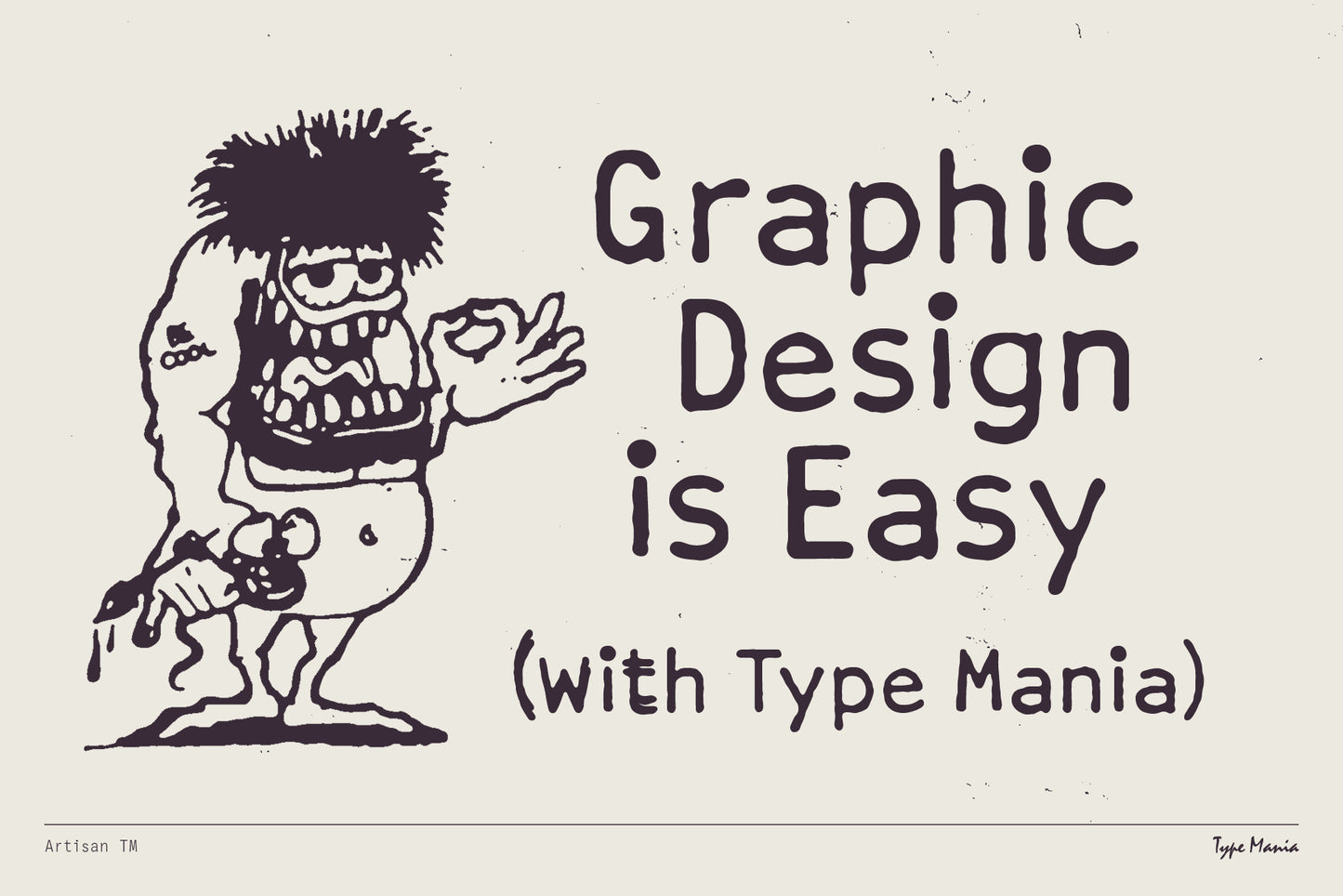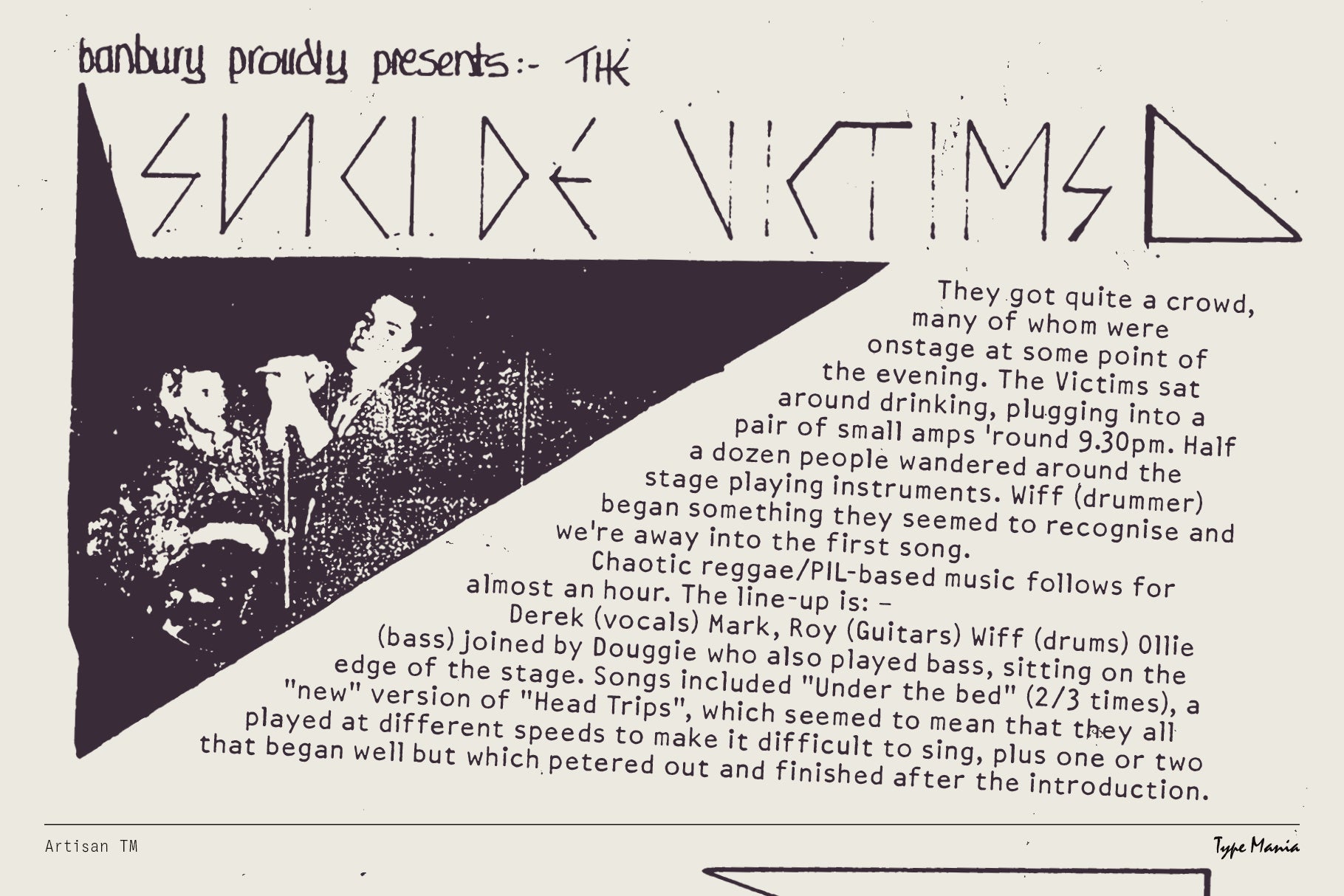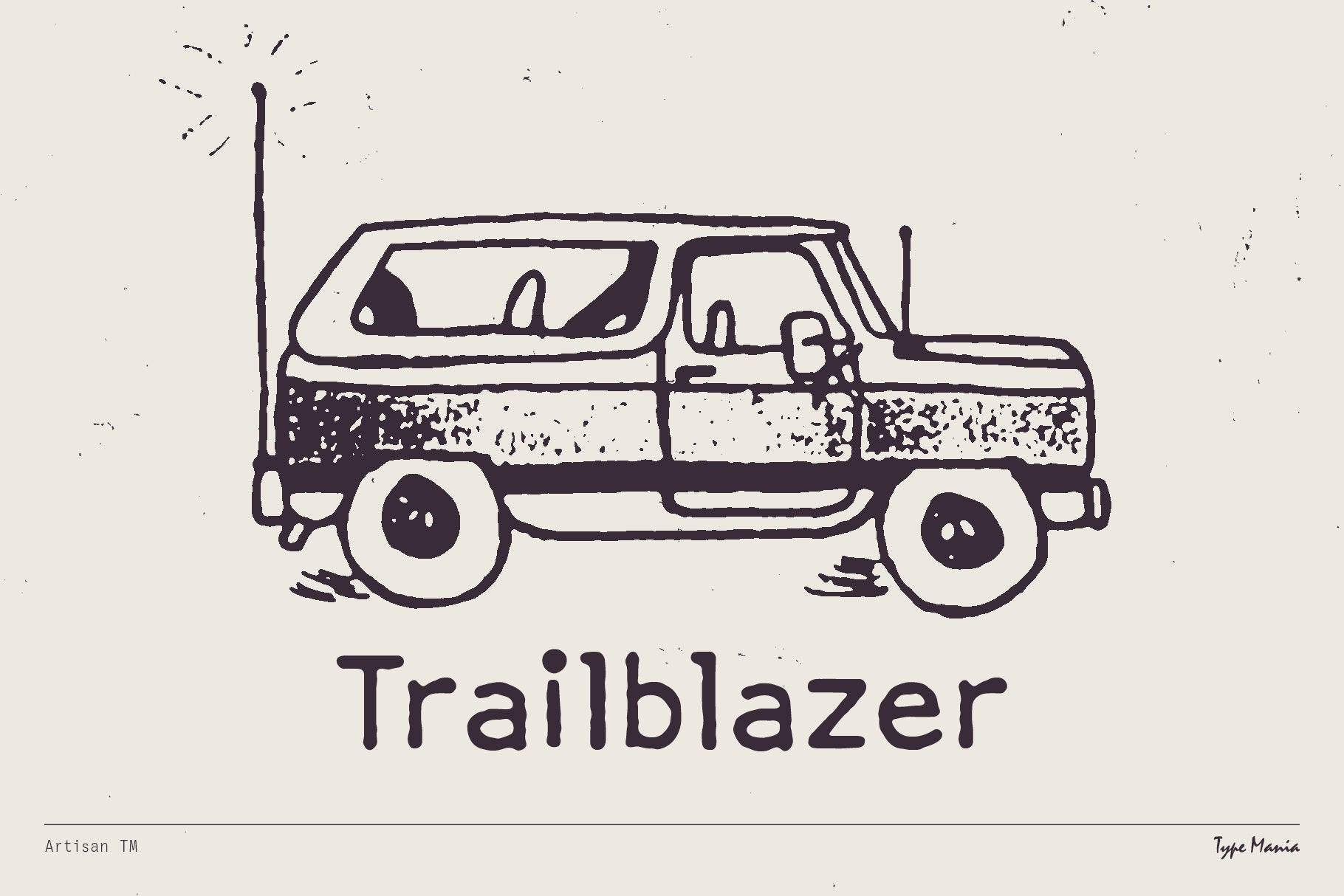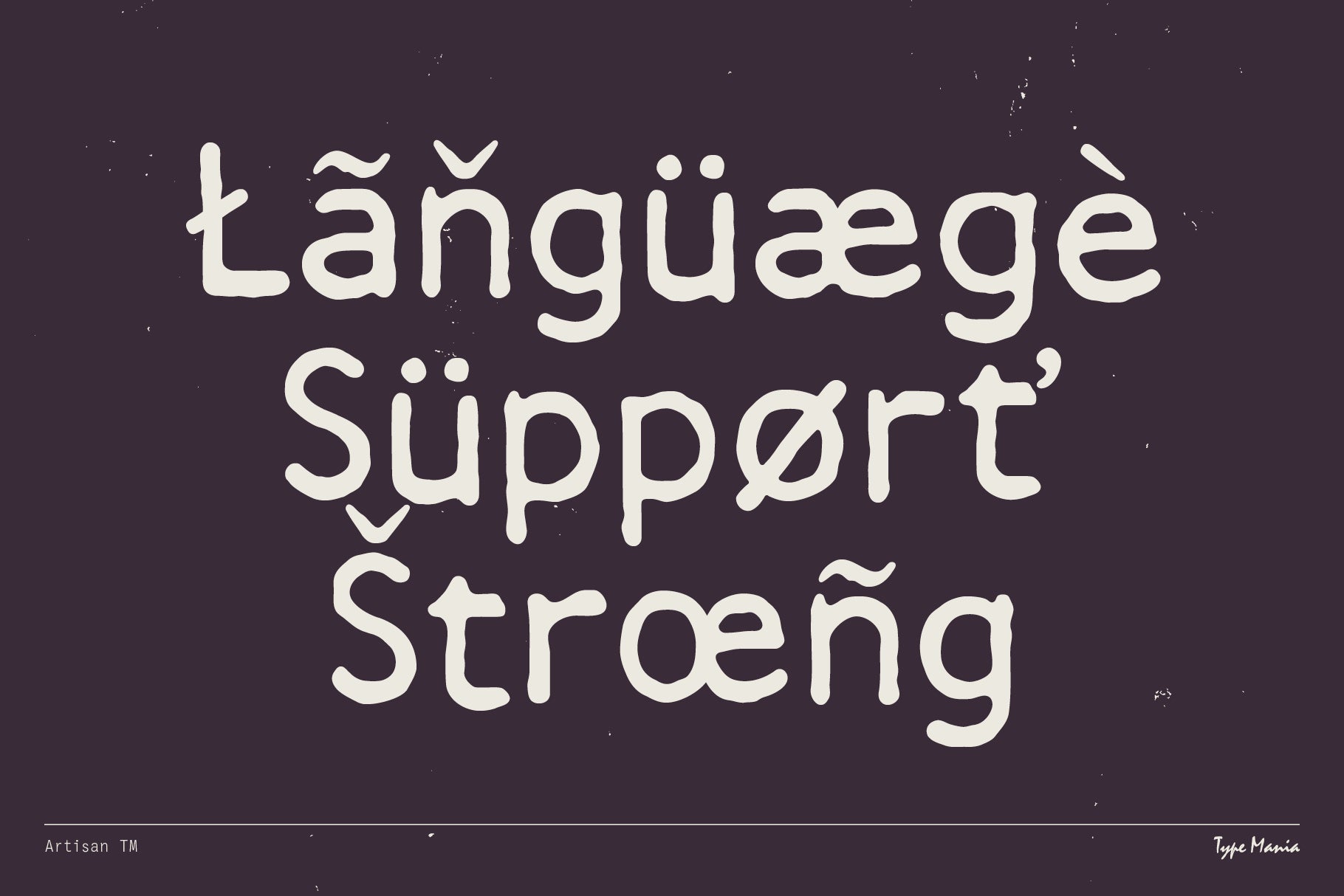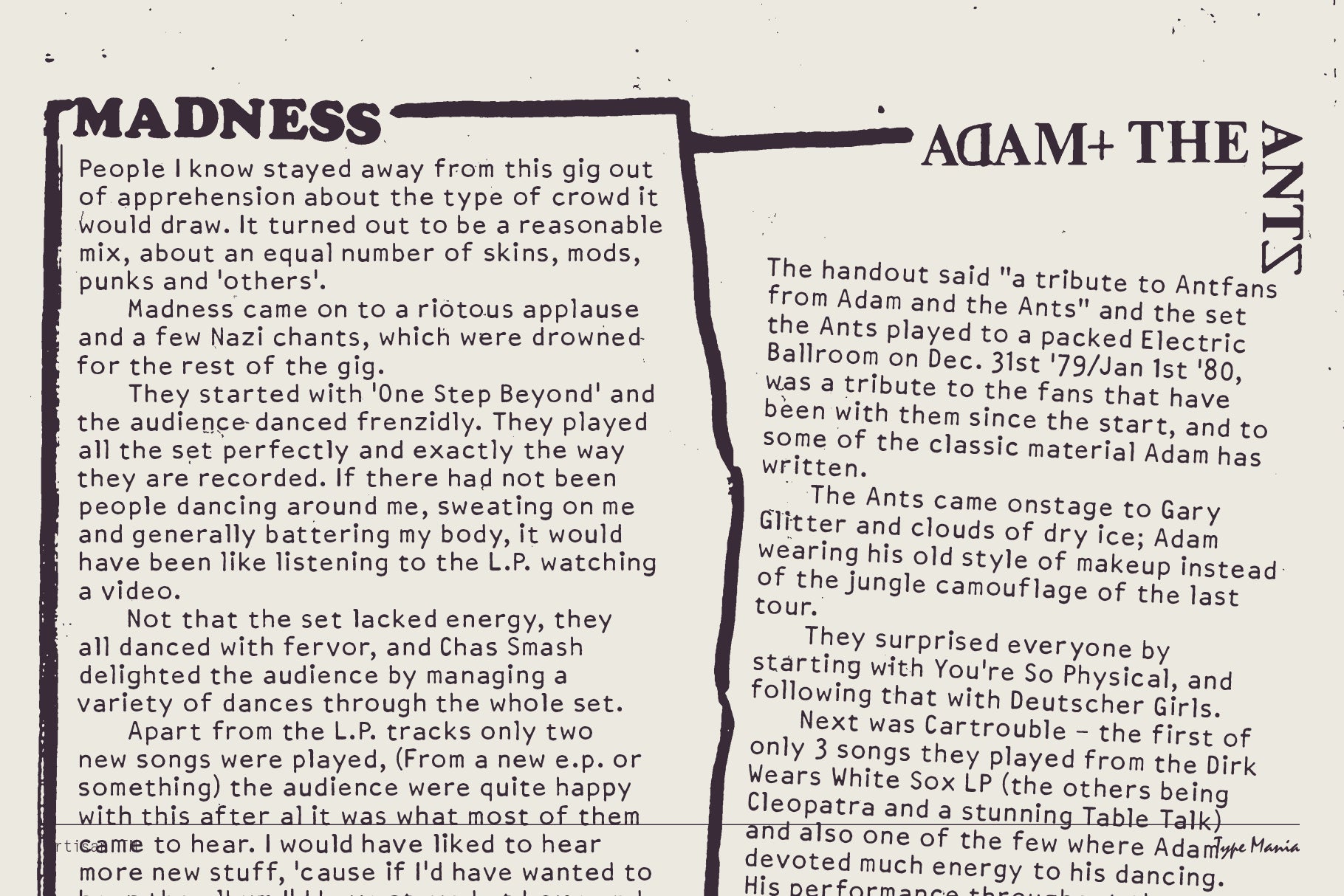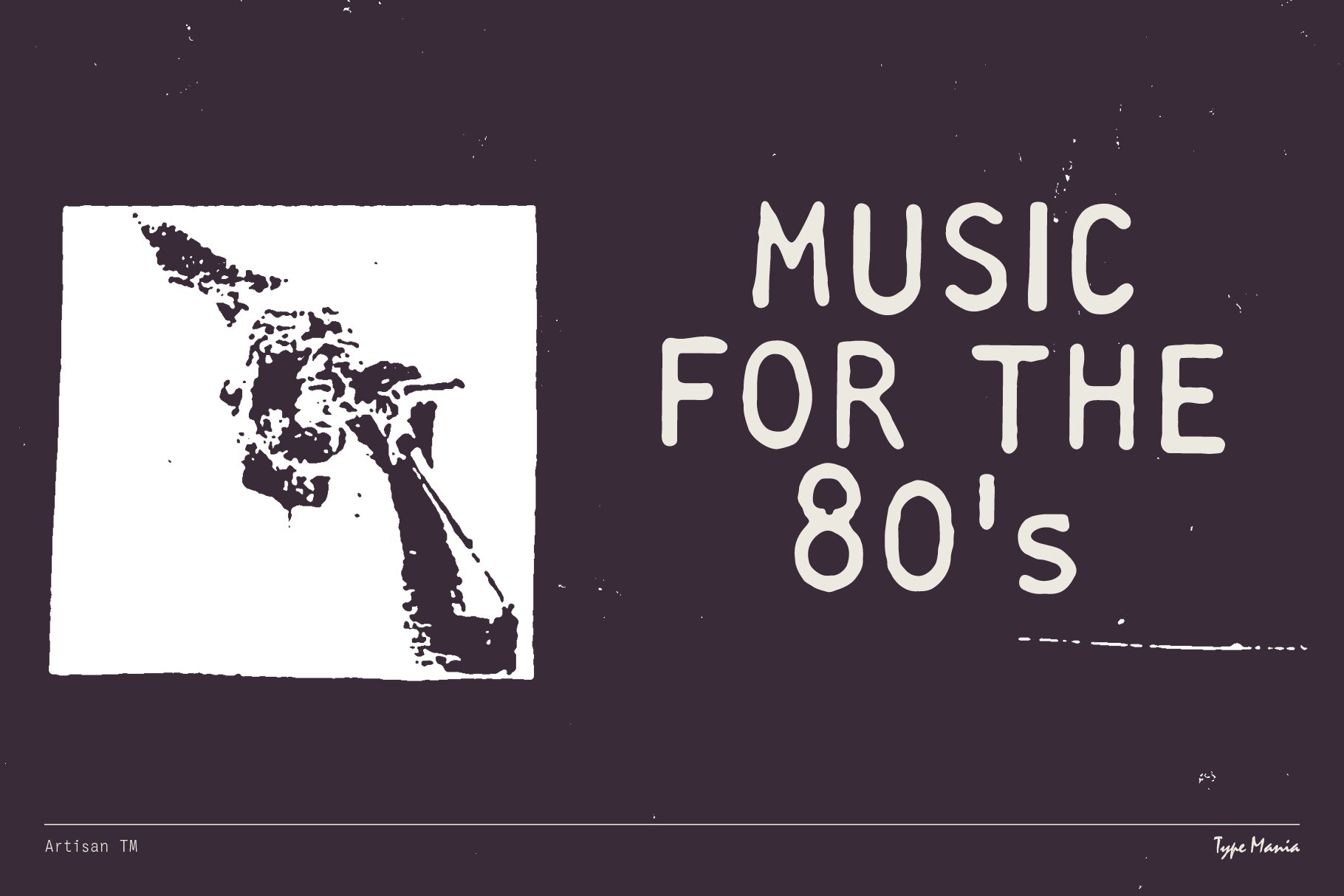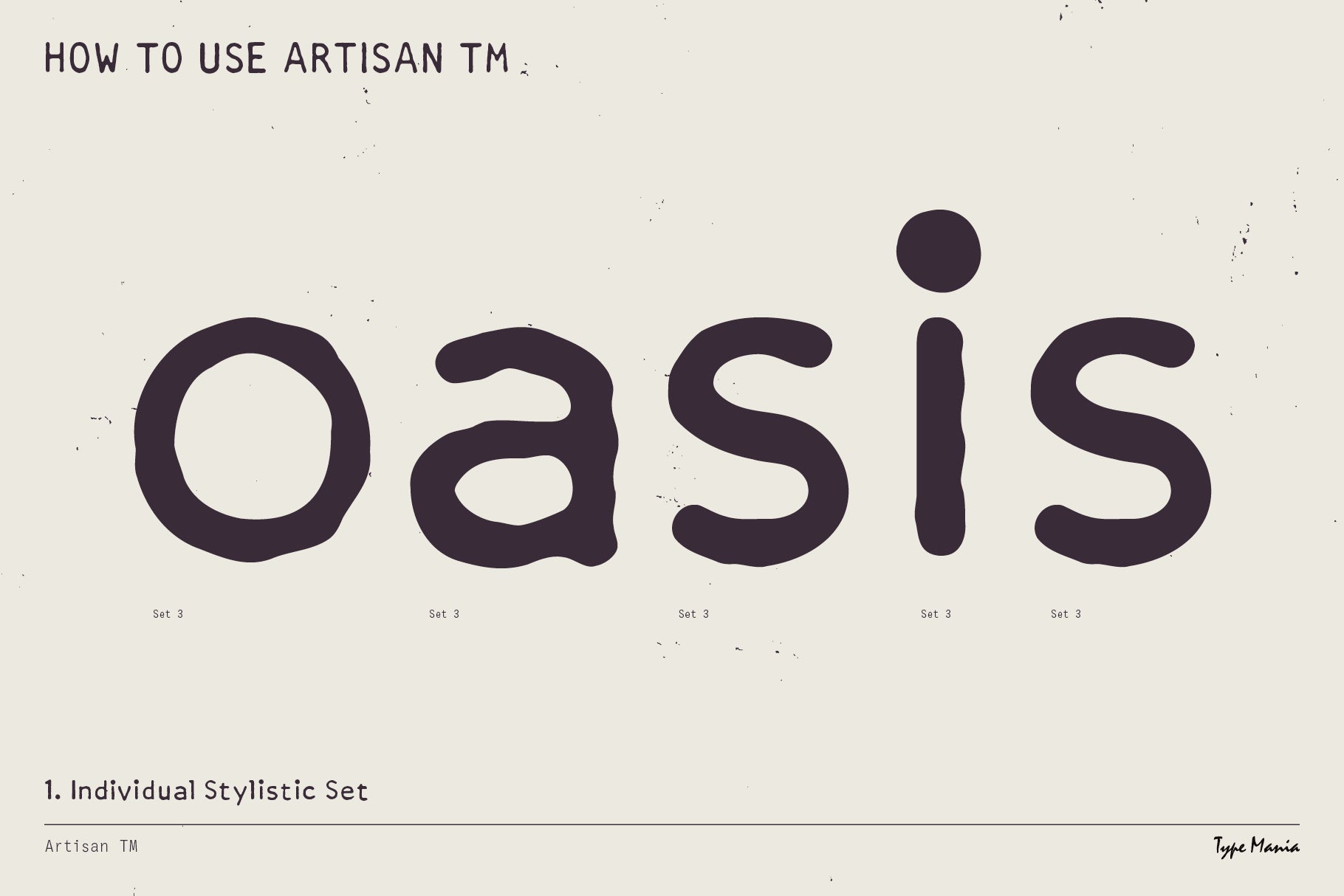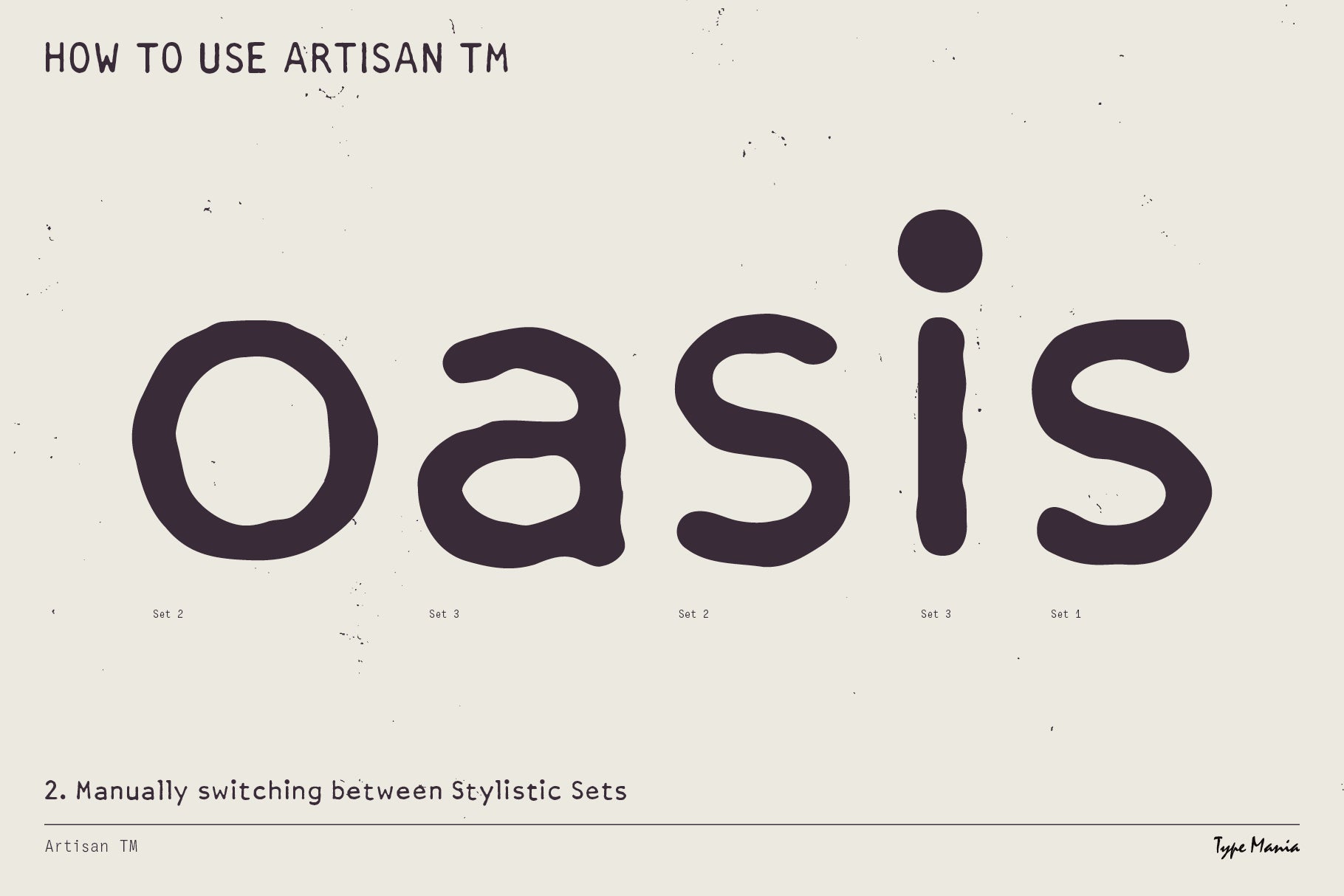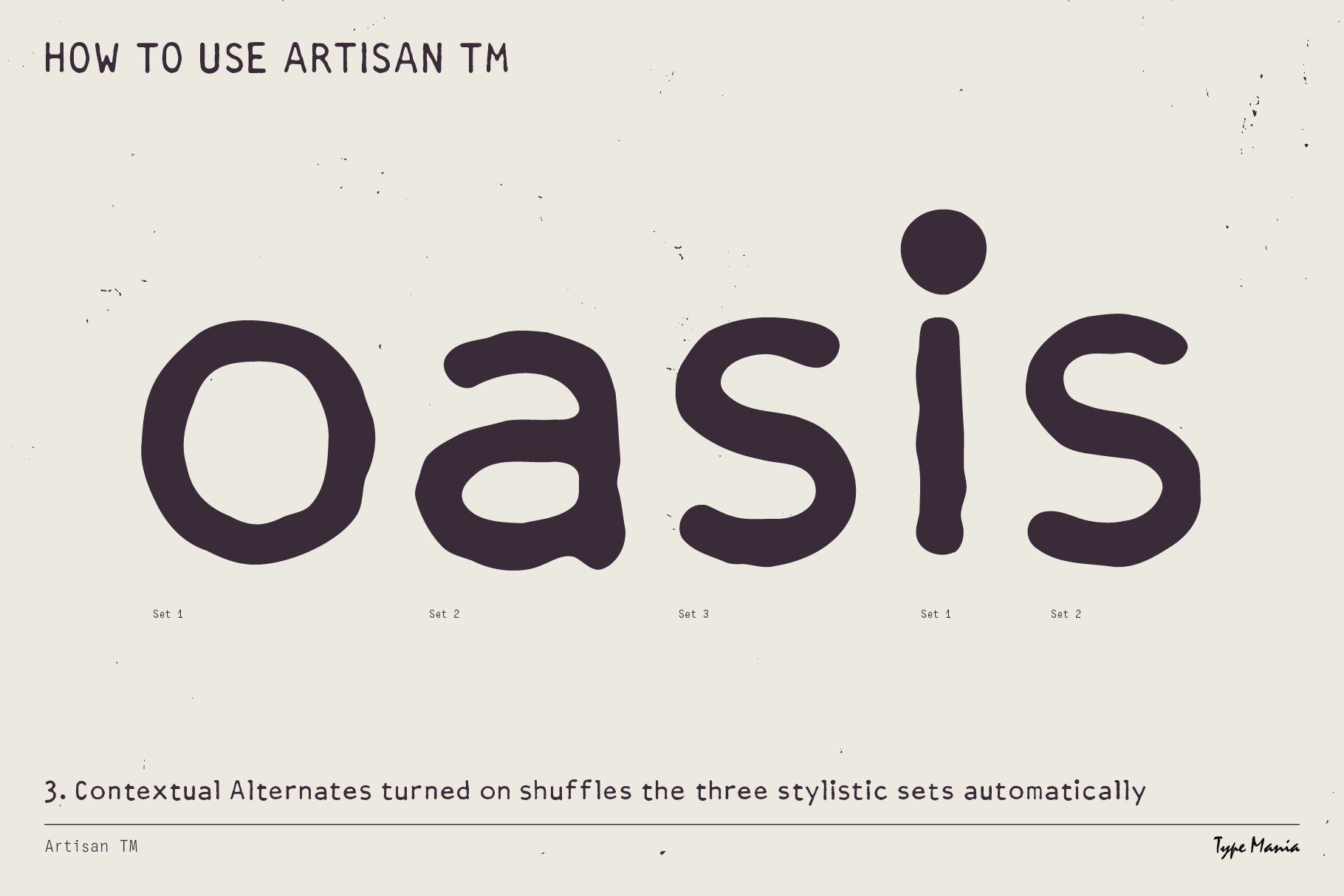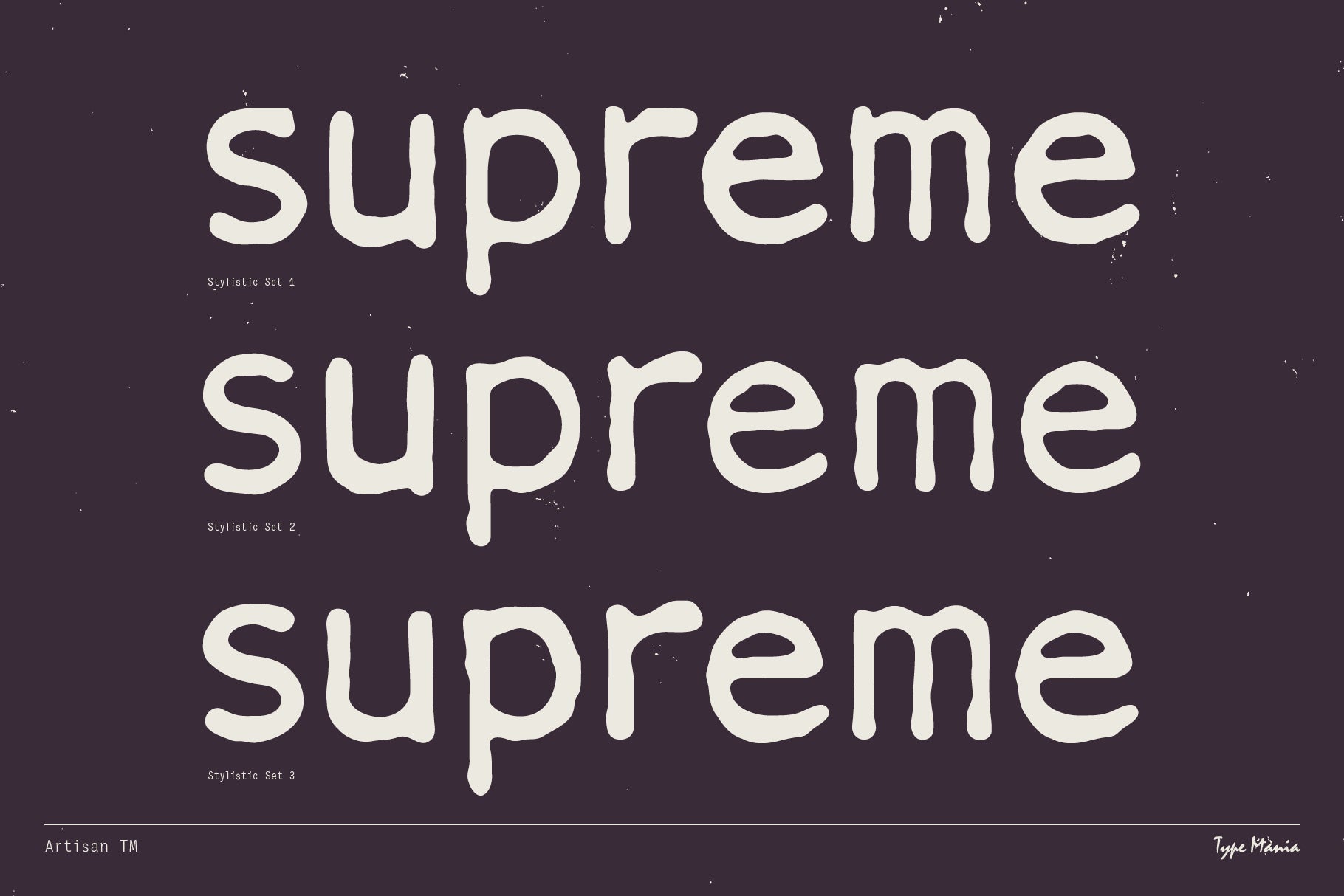
Artisan TM
Inspired by mid-century typeball machines, Artisan TM carries the grit and texture of vintage keystrokes into the next level. It shuffles three stylistic sets automatically, giving you living text that feels as unpredictable as ink on paper.
- 3 stylistic sets
- The font is programmed to automatically shift between the stylistic sets